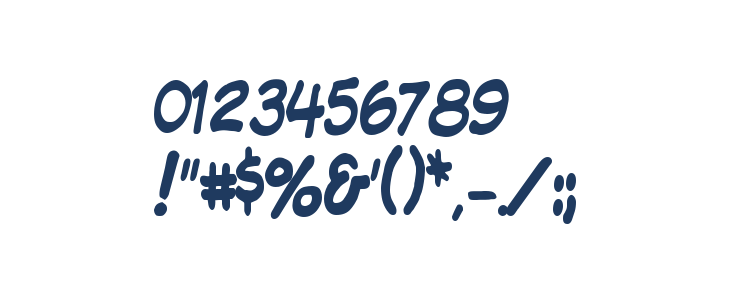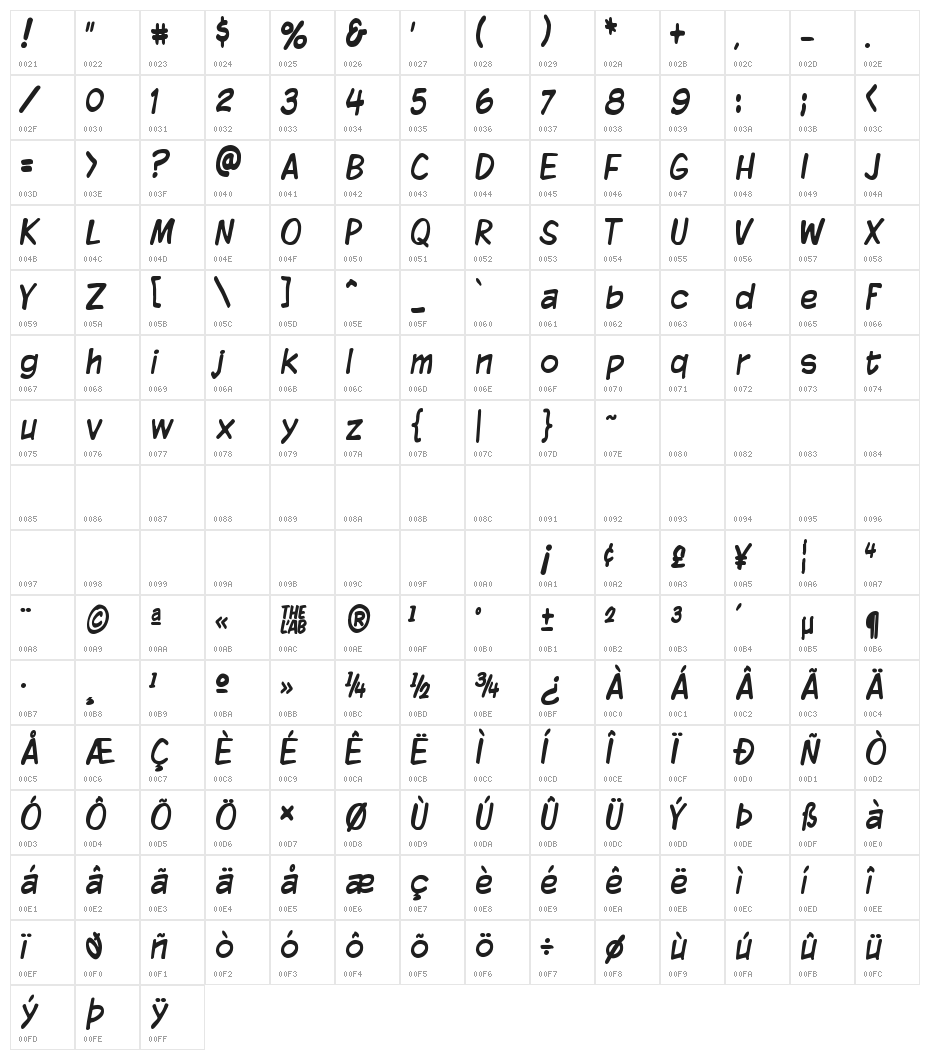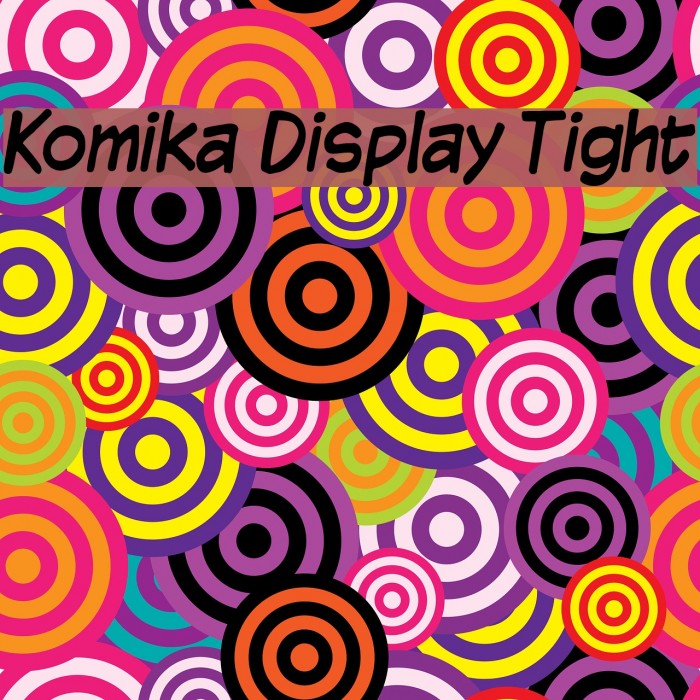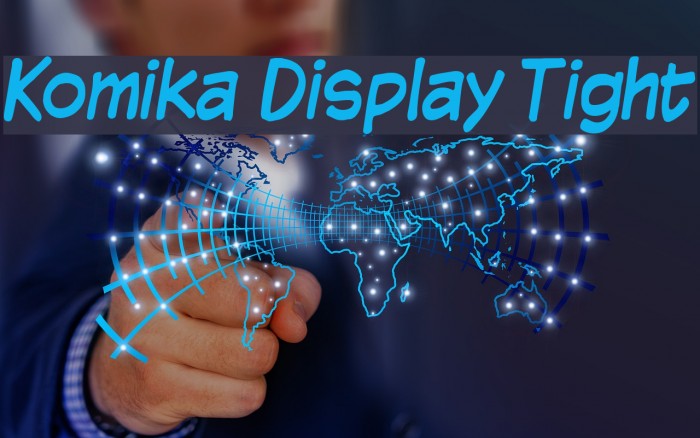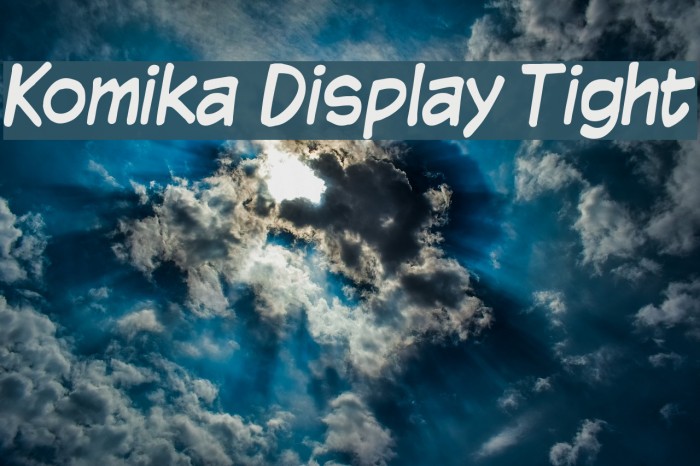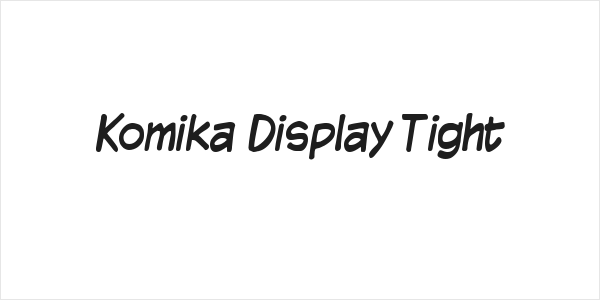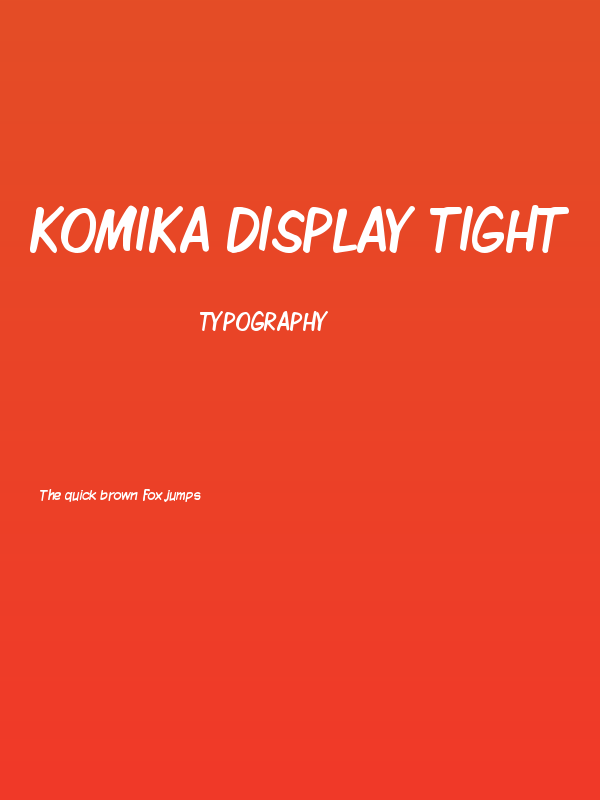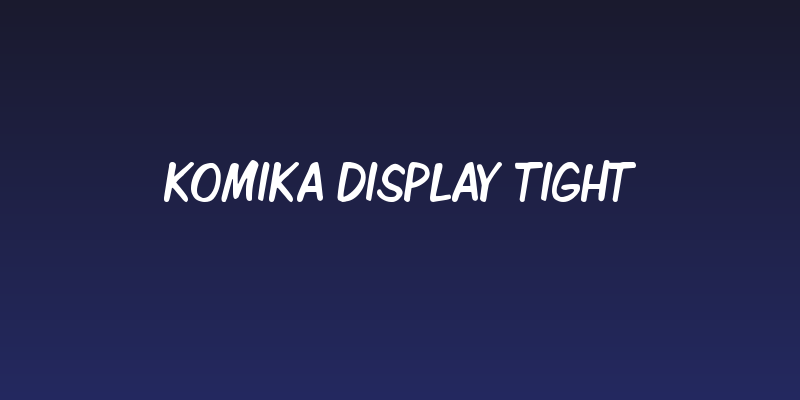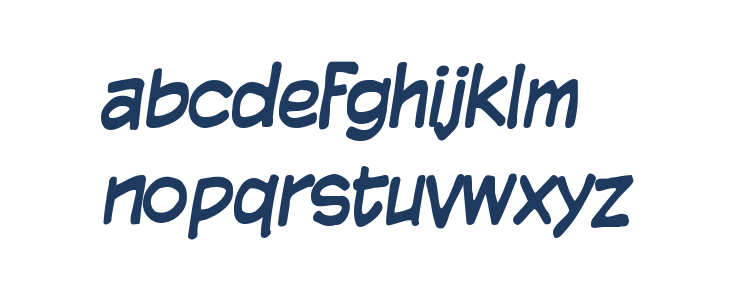
Komika Display Tight Font
Komika Display Tight Description
This font features a playful and bold style with a handwritten appearance. The letters are rounded and slightly slanted, giving it a casual and friendly look. The uppercase and lowercase characters maintain a consistent style, with smooth curves and a uniform thickness throughout. The numbers and special characters follow the same design principles, ensuring a cohesive appearance across all glyphs. This font's energetic and informal vibe makes it suitable for creative and fun projects.
| Proposed Projects | Ideal for comic books, children's books, playful branding, and casual event invitations. |